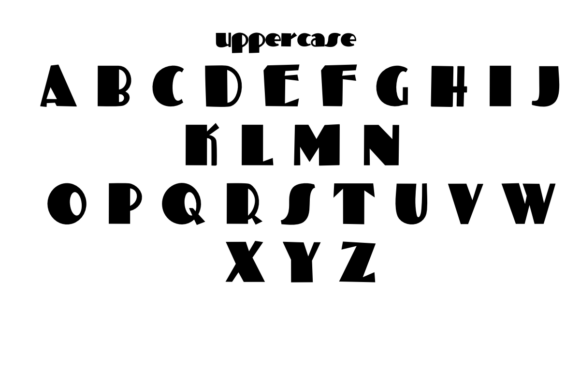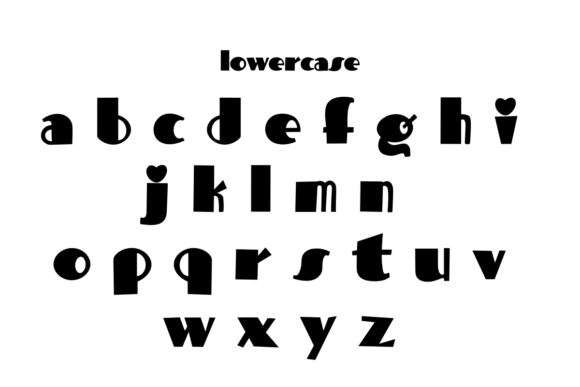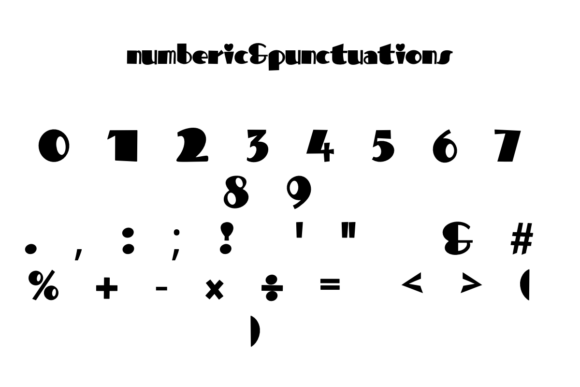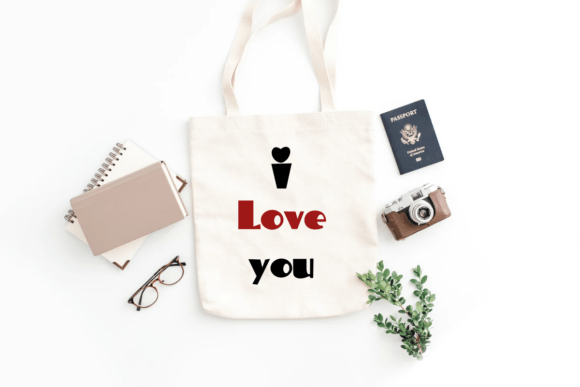
Introducing Girl Kiss Font: The Perfect Blend of Geometric Flair and Modern Love
In the world of typography, fonts play a crucial role in conveying the tone and personality of a brand. For designers and crafters looking for a bold and trendy display font, Girl Kiss Font is an excellent choice. With its unique blend of geometric flair and heart-infused characters, this font is perfect for feminine branding, fashion labels, lifestyle blogs, or any project that calls for a touch of modern love.
What Makes Girl Kiss Font Stand Out?
Girl Kiss Font is a bold and eye-catching display font that is sure to make a statement. Its geometric flair gives it a modern and edgy feel, while the heart-infused characters add a touch of whimsy and romance. The font’s unique design makes it perfect for a variety of applications, from branding and advertising to packaging and social media graphics.
Key Features of Girl Kiss Font
- Bold and Trendy: Girl Kiss Font is a bold and trendy display font that is perfect for making a statement.
- Geometric Flair: The font’s geometric design gives it a modern and edgy feel.
- Heart-Infused Characters: The heart-infused characters add a touch of whimsy and romance to the font.
- Feminine and Modern: The font’s unique design makes it perfect for feminine branding and modern applications.
Perfect for Feminine Branding and Fashion Labels
Girl Kiss Font is perfect for feminine branding and fashion labels looking for a bold and trendy display font. The font’s unique design makes it stand out from the crowd, and its geometric flair gives it a modern and edgy feel. Whether you’re creating a logo, advertisement, or social media graphic, Girl Kiss Font is sure to make a statement.
Use Girl Kiss Font for:
- Feminine Branding: Use Girl Kiss Font to create bold and trendy branding materials, such as logos and advertisements.
- Fashion Labels: The font’s unique design makes it perfect for fashion labels looking for a modern and edgy display font.
- Lifestyle Blogs: Use Girl Kiss Font to add a touch of modern love to your lifestyle blog’s graphics and social media posts.
- Social Media Graphics: The font’s bold and eye-catching design makes it perfect for social media graphics and advertisements.
Tips for Using Girl Kiss Font
Here are a few tips for using Girl Kiss Font:
- Use it as a Display Font: Girl Kiss Font is perfect for use as a display font, and is best suited for headlines and titles.
- Experiment with Colors: The font’s bold and eye-catching design makes it perfect for use with bright and bold colors.
- Pair it with Other Fonts: Experiment with pairing Girl Kiss Font with other fonts to create a unique and eye-catching design.
Girl Kiss Font is a bold and trendy display font that is perfect for feminine branding, fashion labels, lifestyle blogs, or any project that calls for a touch of modern love. With its unique blend of geometric flair and heart-infused characters, this font is sure to make a statement. Whether you’re a designer or crafter, Girl Kiss Font is an excellent choice for any project.